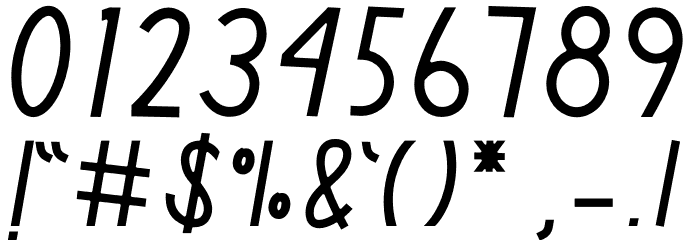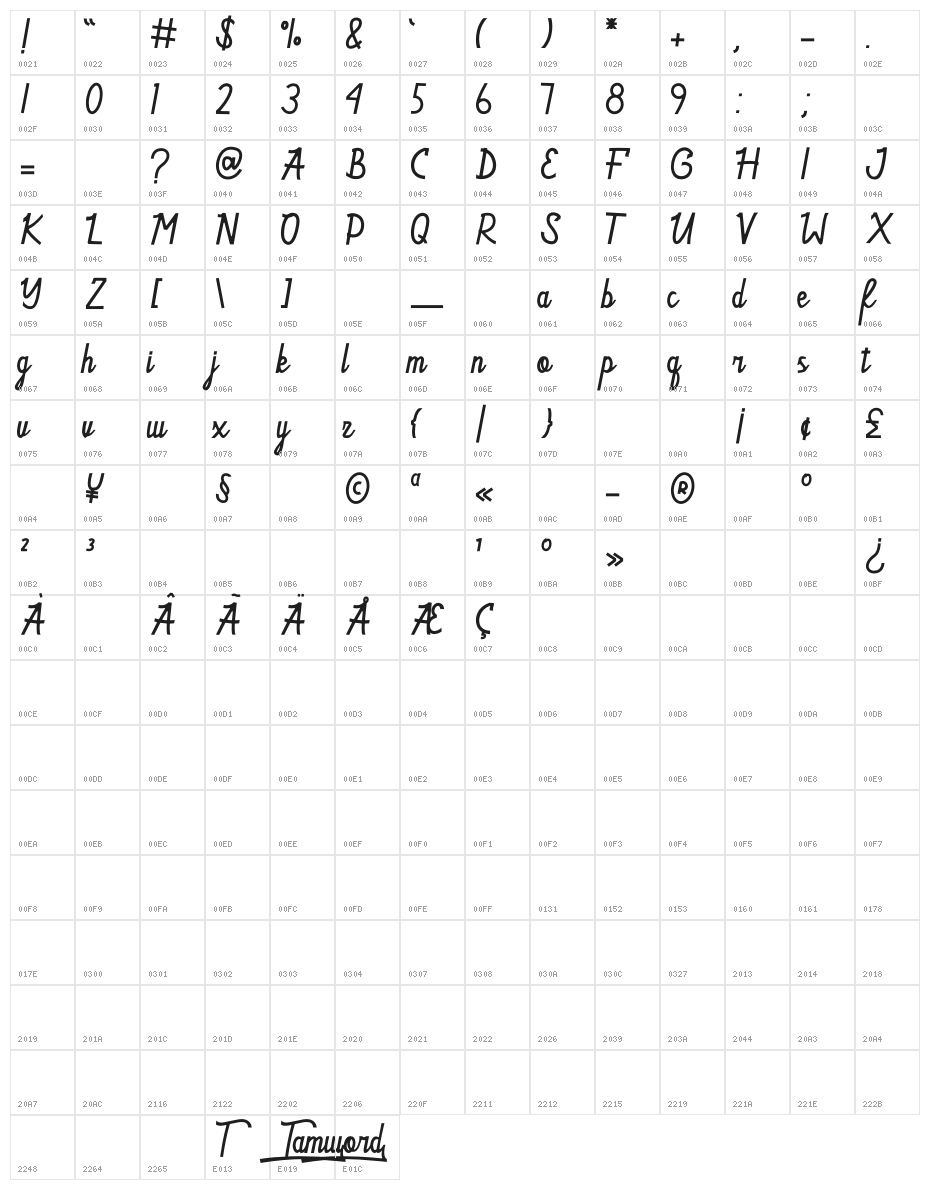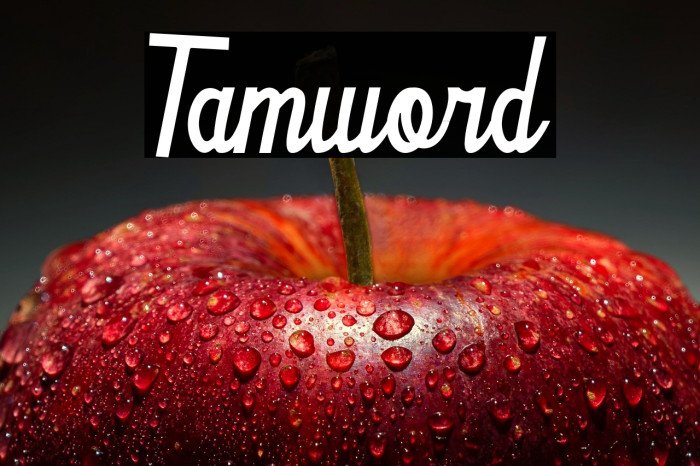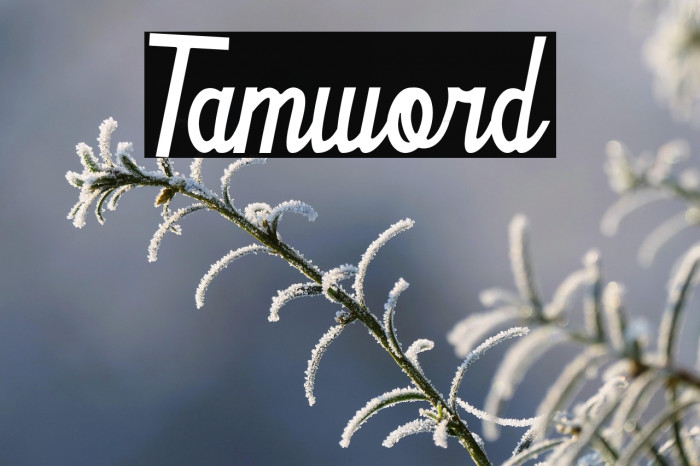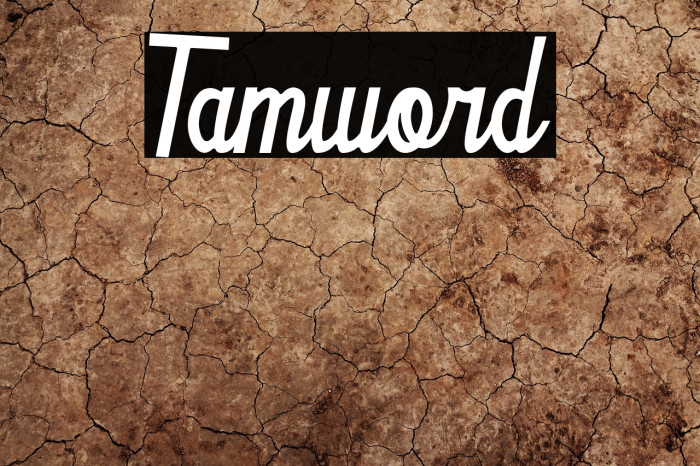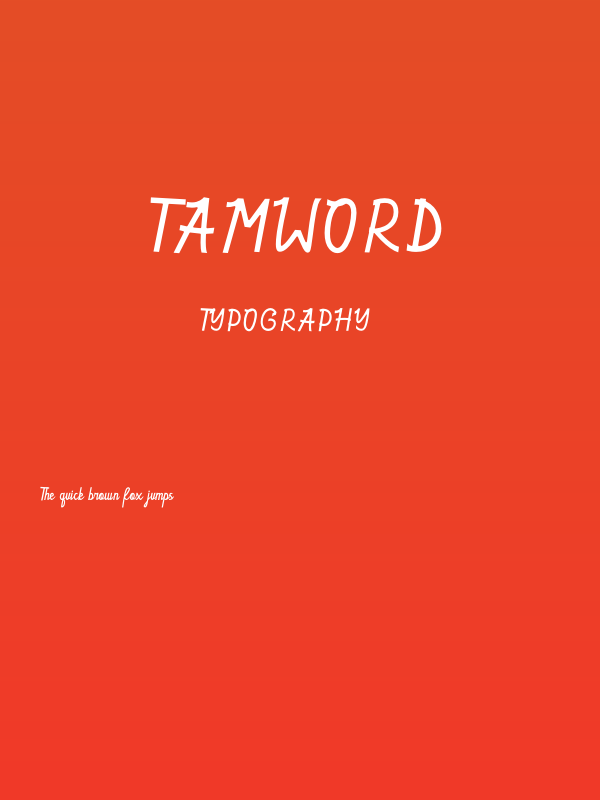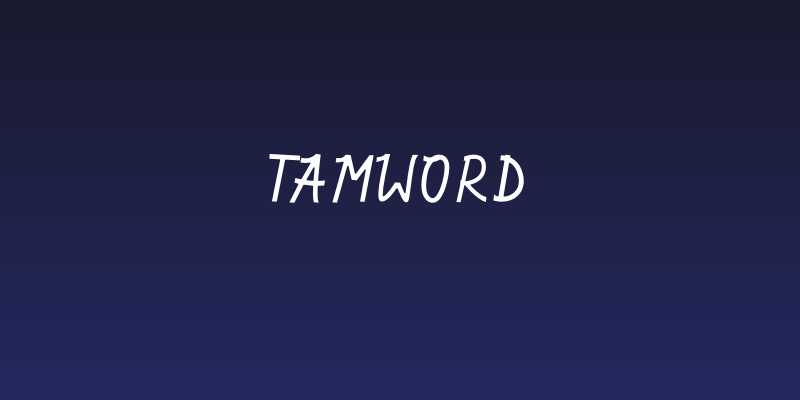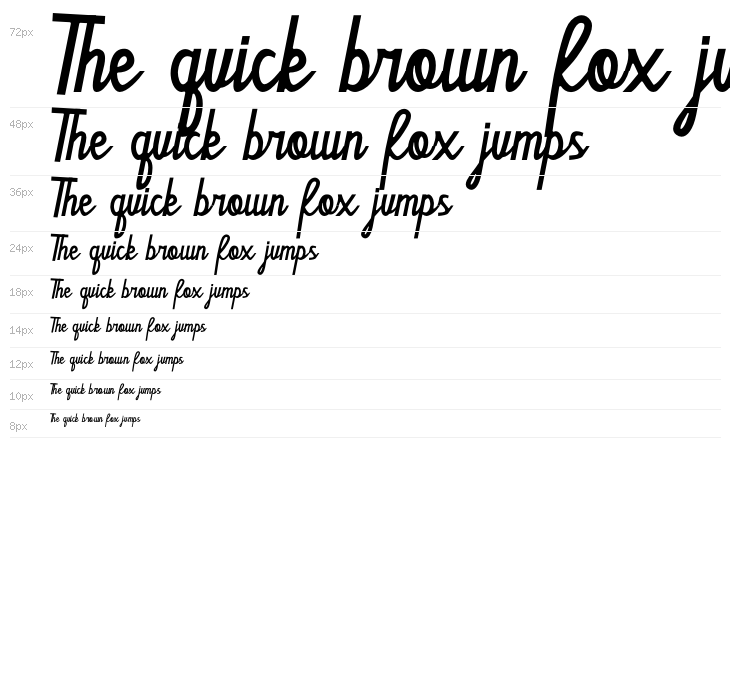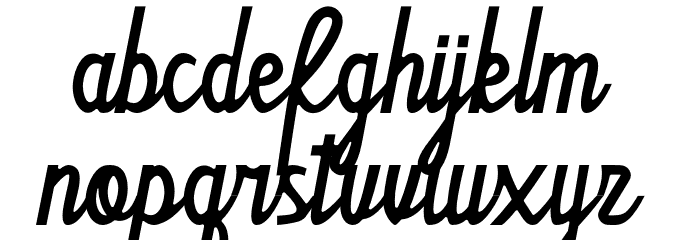
Tamword Font
Tamword Description
This font features a dynamic and energetic script style with a slight slant, giving it a sense of motion and fluidity. The uppercase letters are bold and assertive, with a consistent stroke width that maintains readability. The lowercase letters are more playful, with some characters featuring loops and curves that add a touch of elegance. The numbers are clear and straightforward, ensuring they stand out in any context. Special characters are well-integrated, maintaining the font's overall aesthetic. This font is versatile, suitable for both formal and informal settings, and can add a personal touch to any design.
| Use Case | Logos, Invitations, Creative projects |
| Proposed Projects | Ideal for invitations, branding, and creative projects that require a personal touch. |